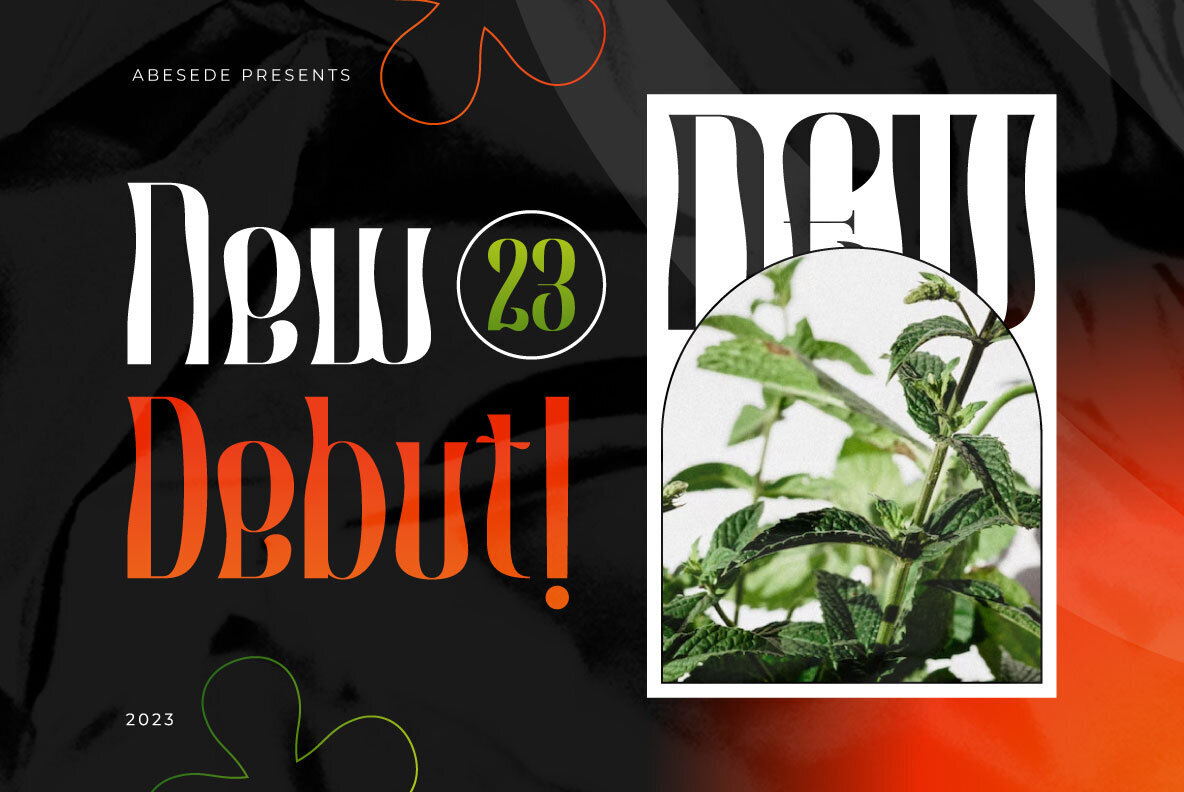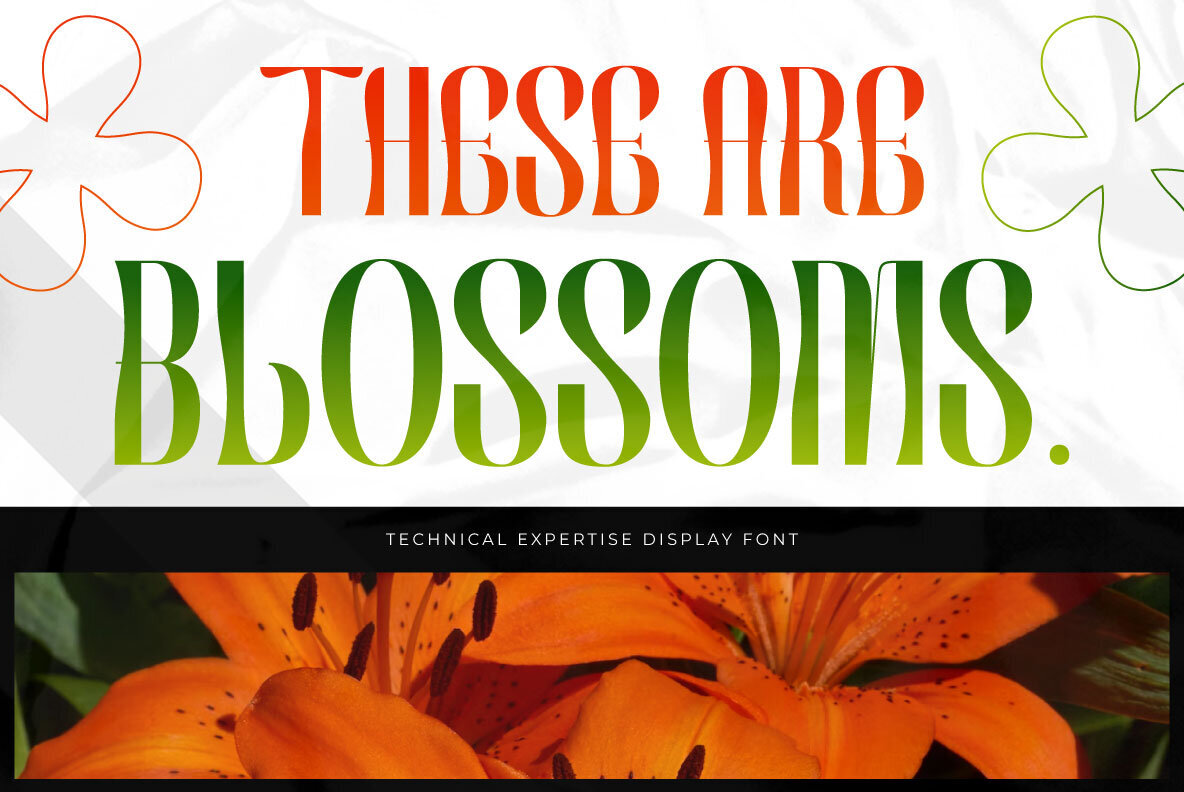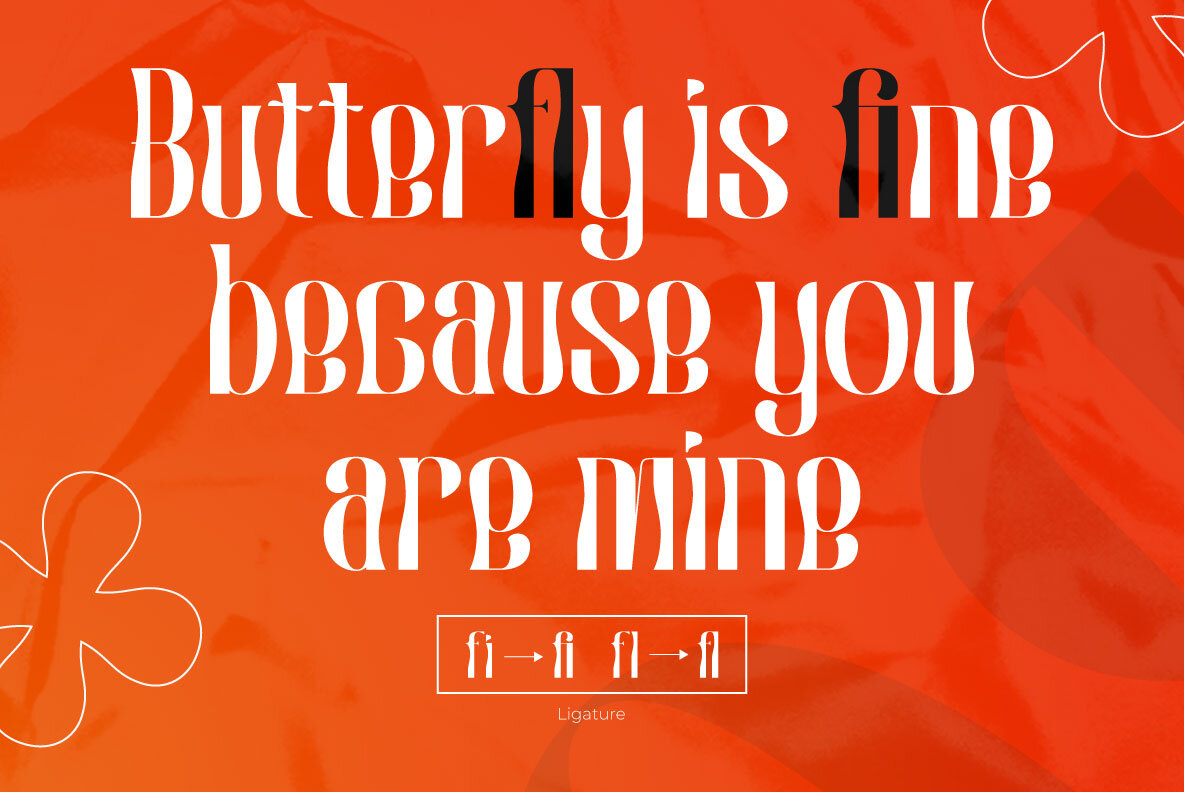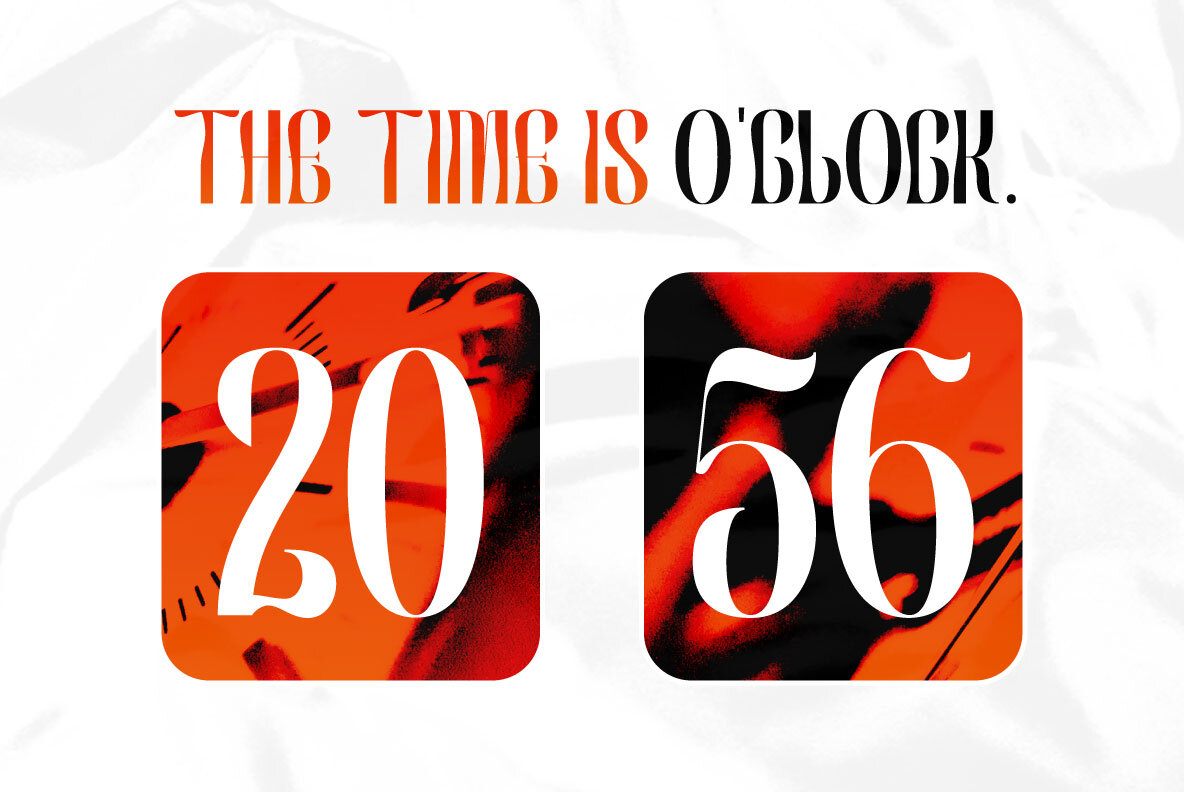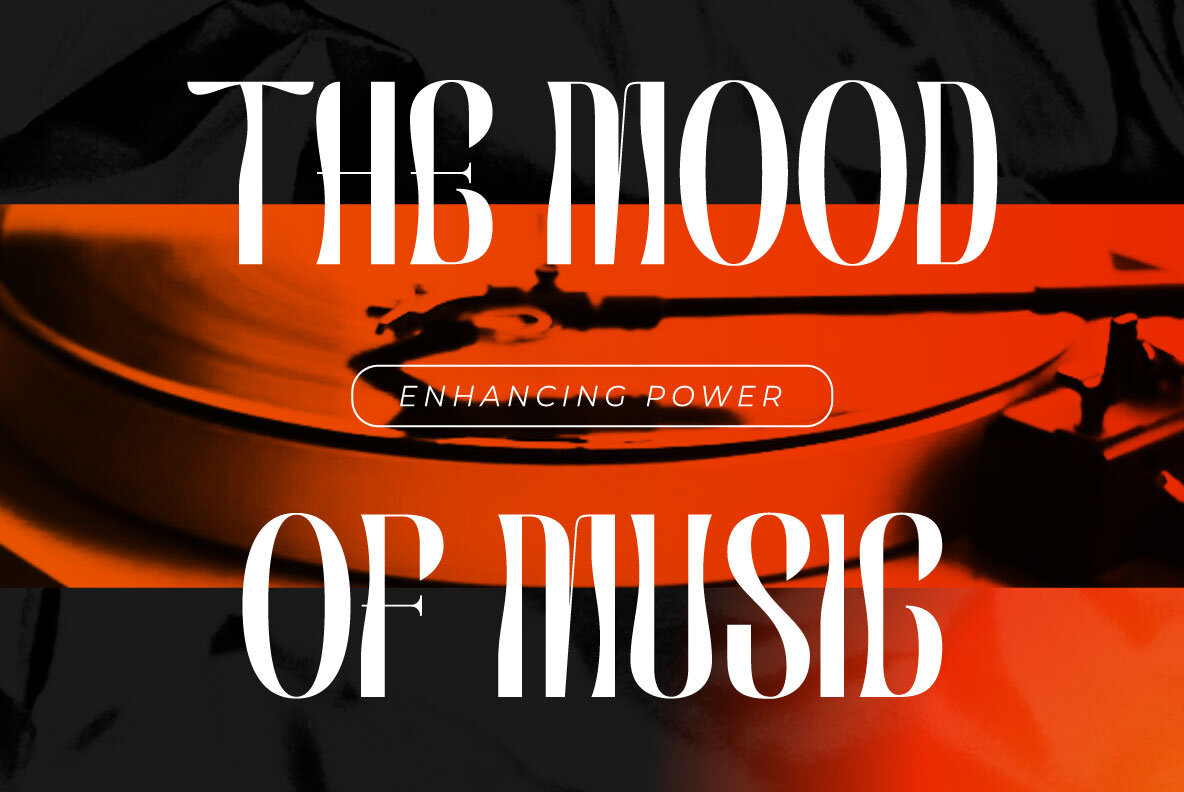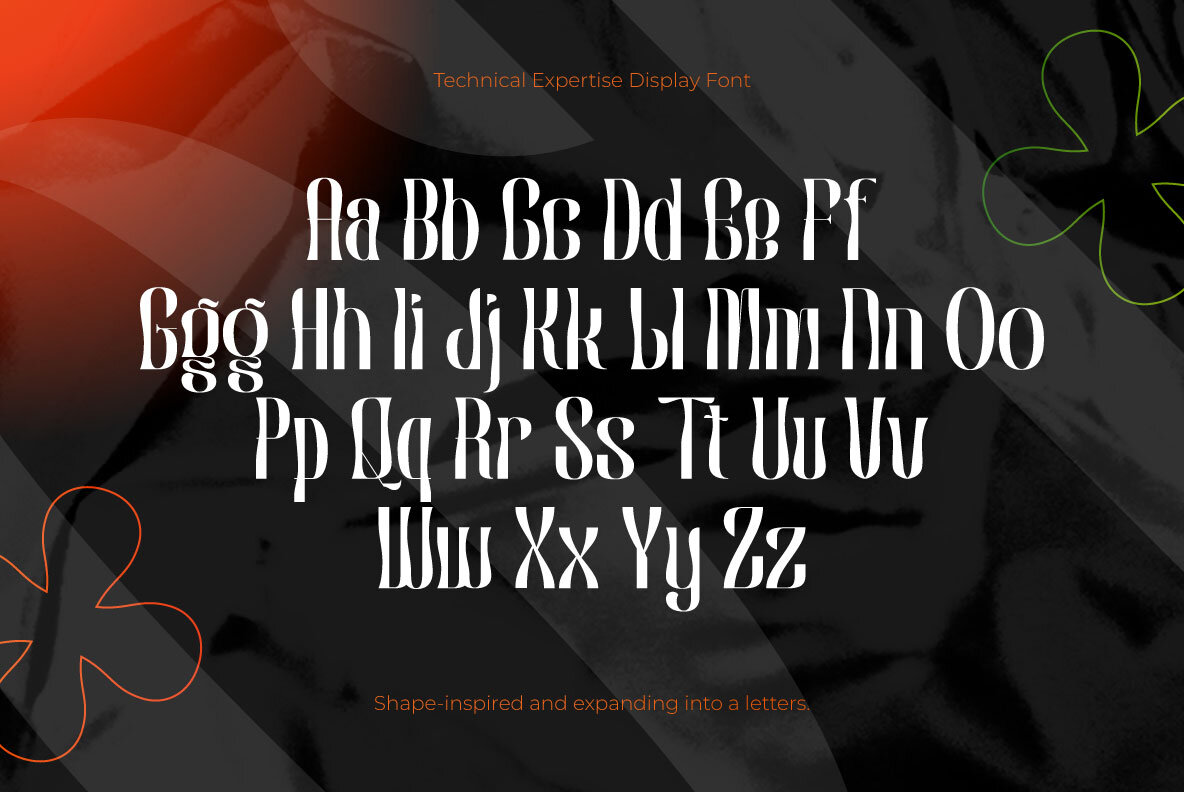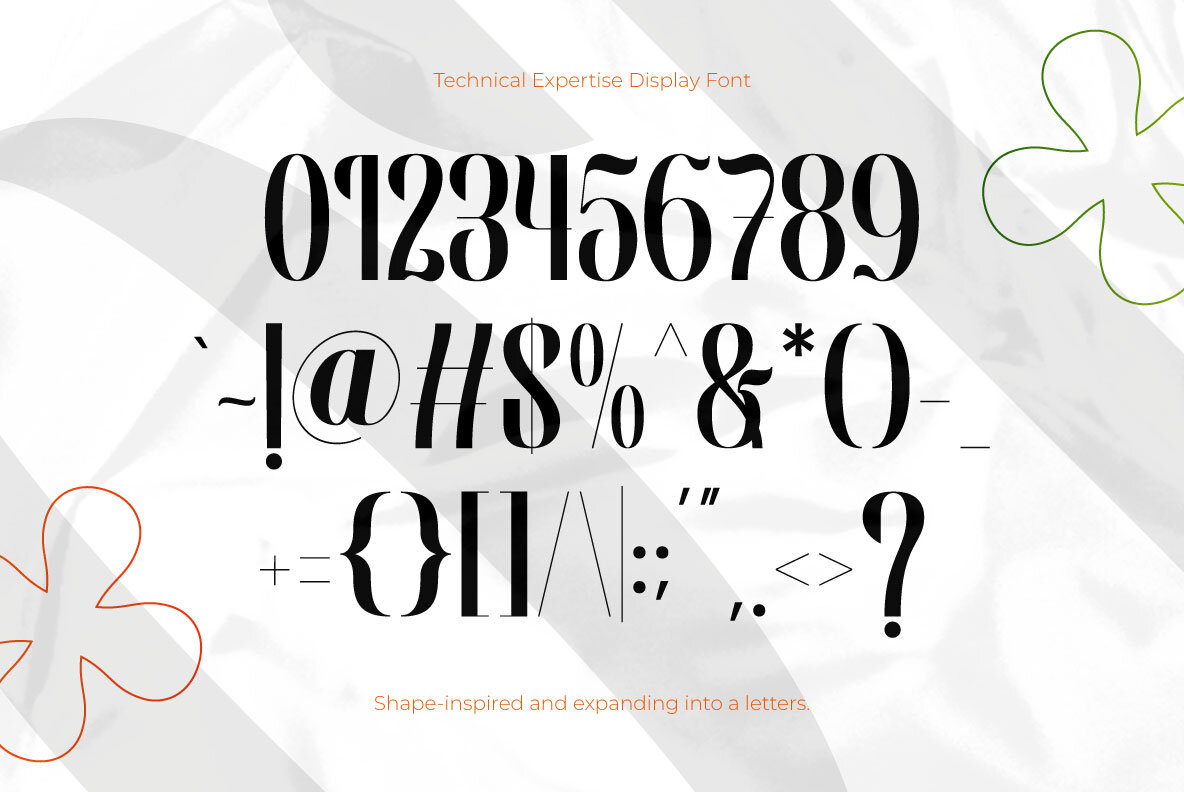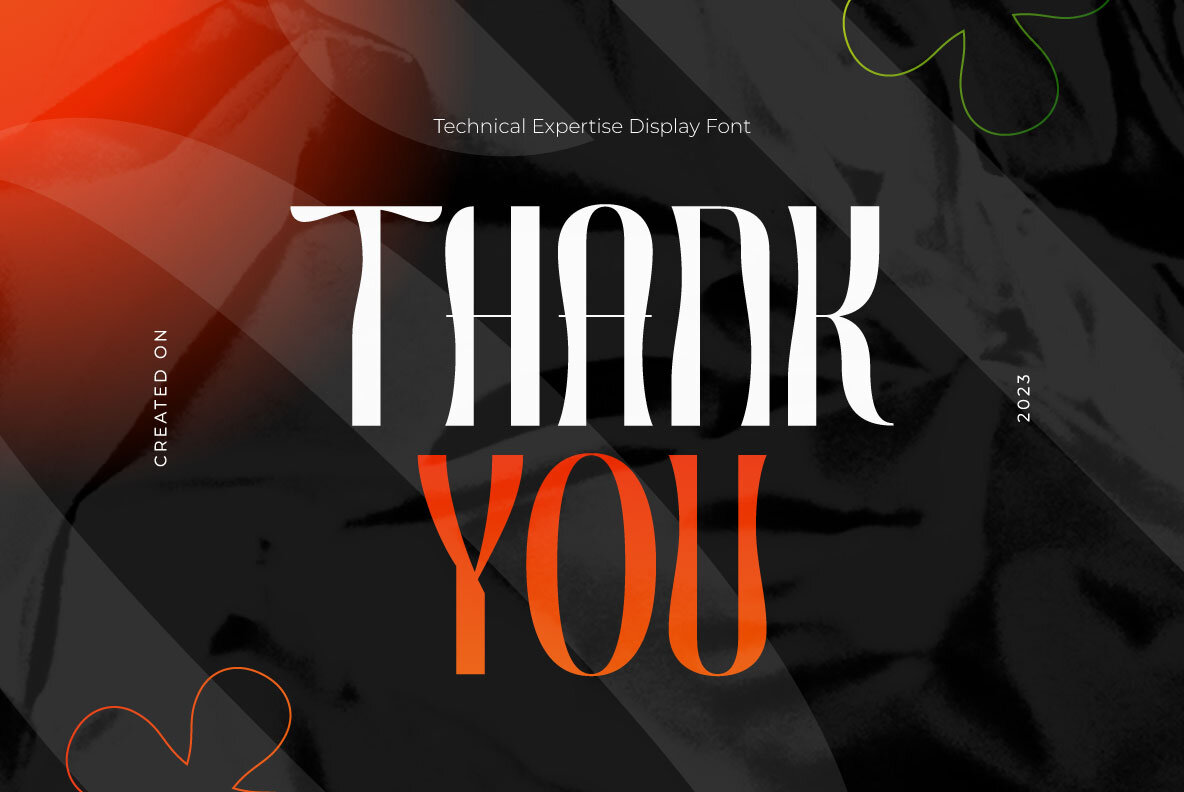
Technical Expertise Font
Technical Expertise Regular
Technical Expertise by Abesede Studio offers a distinctive display typeface characterized by its shape-inspired design. It takes inspiration from geometric forms, expanding these concepts into letter designs that are both unique and visually striking.Technical Expertise: A Display Typeface with Expansive Shapes